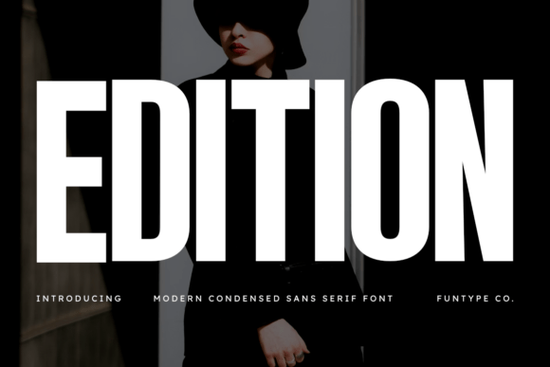
If you're looking for a font that can make a bold and impactful statement, the Edition Font is a great choice. This ultra-condensed sans serif font is designed to stand out, making it perfect for strong headlines, modern posters, album covers, sports graphics, branding, and high-impact advertising.
Why Choose the Edition Font?
The Edition Font is all about making a strong visual impact. Its tall structure and compact width give it a commanding presence, while its clean and confident design ensures your visuals look professional and striking. Whether you're designing a poster, an album cover, or a brand logo, this font can help you achieve the right balance of boldness and clarity.
When to Use the Edition Font
The Edition Font is versatile and can be used in a variety of design projects. Here are some scenarios where it shines:
- Headlines and Titles: The bold and condensed nature of the font makes it ideal for grabbing attention in headlines and titles.
- Modern Posters: If you're creating a modern, eye-catching poster, the Edition Font can add a touch of sophistication and impact.
- Album Covers: For album covers that need to stand out, this font can provide a strong, memorable look.
- Sports Graphics: The font's bold and dynamic style is perfect for sports-related designs, such as team logos, event posters, and merchandise.
- Branding and Advertising: When you need to create a strong, professional brand identity or high-impact advertisements, the Edition Font can be a powerful tool.
How to Pair the Edition Font with Other Fonts
To create a well-balanced and visually appealing design, consider pairing the Edition Font with other fonts. Here are some tips:
- Complementary Sans Serifs: Pairing the Edition Font with a more readable sans serif, like Perfect Lemonade, can create a harmonious and balanced look.
- Script Fonts: Adding a script font, such as Summer Marker, can introduce a touch of elegance and contrast to your design.
- Display Fonts: For a more creative and unique look, try combining the Edition Font with a display font like Brisca.
- Clean and Minimal Fonts: A clean and minimal font, such as Cultivo, can complement the boldness of the Edition Font and add a modern, sleek touch.
- Handwritten Fonts: For a more casual and personal feel, you might pair the Edition Font with a handwritten font like Kohilo.
Real-World Examples of the Edition Font in Action
Seeing the Edition Font in real-world applications can help you understand its potential. Here are a few examples:
- Music Album Covers: Many music artists use the Edition Font for their album covers to create a strong, memorable visual identity.
- Sports Team Logos: Sports teams often incorporate the Edition Font into their logos and merchandise to project a bold and powerful image.
- Event Posters: Event organizers use the Edition Font to create eye-catching and impactful posters for concerts, festivals, and other events.
- Brand Identity: Small businesses and startups use the Edition Font to establish a strong and professional brand identity.
Tips for Using the Edition Font Effectively
To get the most out of the Edition Font, here are some practical tips:
- Use It Sparingly: As a bold and impactful font, it's best to use the Edition Font sparingly. Reserve it for key elements like headlines and titles.
- Balance with Readable Text: Pair the Edition Font with more readable fonts for body text to ensure your design is both visually striking and easy to read.
- Experiment with Colors: Play around with different color combinations to find what works best for your design. Bold colors can enhance the impact of the Edition Font.
- Test on Different Platforms: Make sure to test your design on various devices and platforms to ensure the Edition Font looks great everywhere.